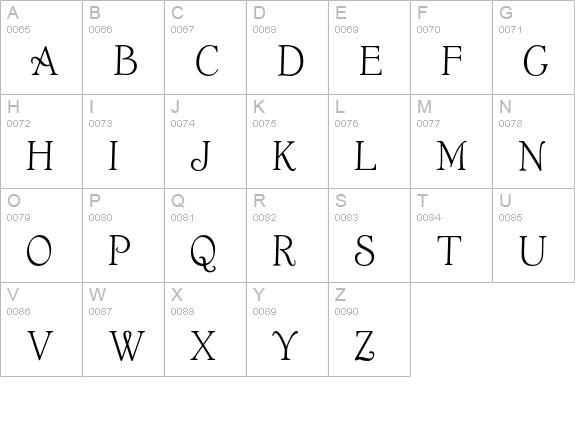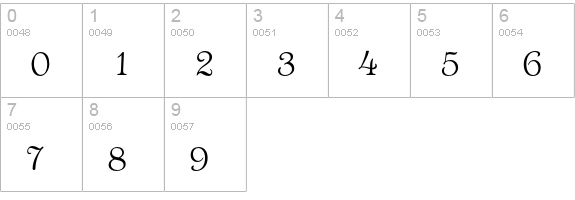
OPTIAnnouncement-Roman Font Details
OPTIAnnouncement-Roman is a classic and elegant font that exudes sophistication and style. With its clean lines and timeless design, this font is perfect for a wide range of projects, from invitations to branding materials. The versatility of OPTIAnnouncement-Roman makes it a popular choice among designers looking to add a touch of class to their work. Best of all, OPTIAnnouncement-Roman is available for free download at FontsMarket.com. This means you can enjoy using this premium font without having to spend a dime. Whether you're a professional designer or just someone looking to elevate their creative projects, OPTIAnnouncement-Roman is a must-have addition to your font collection. Download it today and see the difference it can make in your designs!